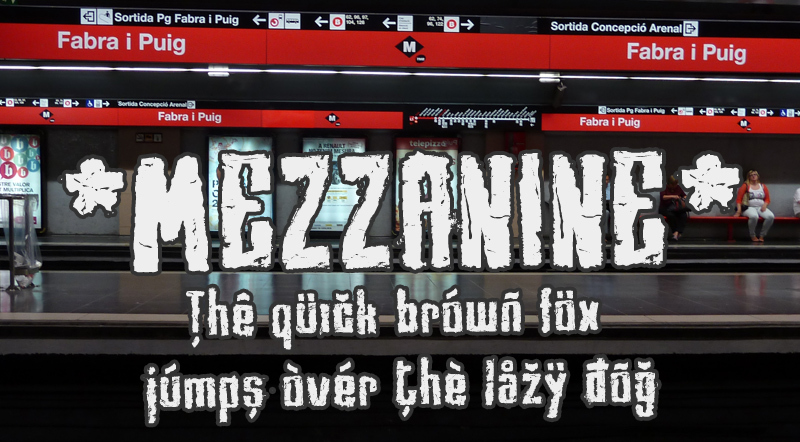
Mezzanine by Frederic Rich is a free eroded display font with tall, forceful lettering. Its broken edges resemble ink dragged across a rough printing surface. Narrow gaps and uneven patches sharpen the industrial look.
Its distressed print character suits punk music graphics and underground event posters. The same battered forms fit skate merchandise and horror-themed packaging, where clean type would feel too controlled. Across these uses, the irregular wear makes the lettering part of the artwork rather than text.
Mezzanine
Frederic Rich